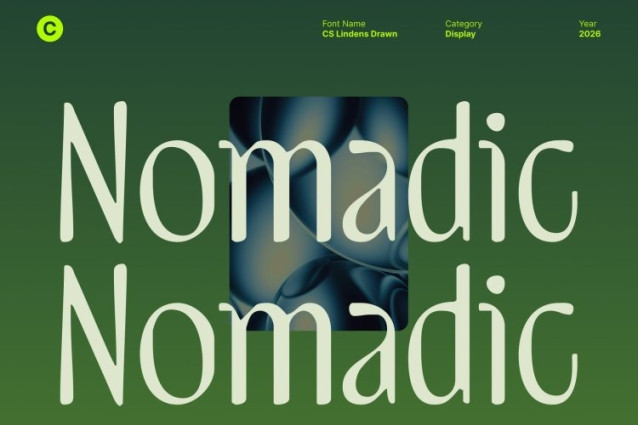
CS Lindens Drawn Font
CS Lindens Drawn Font This is an aesthetic sans serif font designed to embody minimalism, clarity, and modern beauty, enhanced with a subtle hand-drawn texture. Its clean lines and sleek construction reflect the visual language of contemporary digital culture, while the drawn effect adds warmth and artistic character.
Minimalist Structure with Soft Hand-Drawn Beauty
The letterforms are crafted with a minimalist approach, focusing on balance, spacing, and smooth geometry. Light stroke variations and a gentle drawn finish introduce softness and uniqueness to each character, preventing the font from feeling overly rigid or mechanical. This combination enhances readability while delivering an elegant, aesthetic look that feels refined yet approachable.
Modern Digital Vibe with Artistic Aesthetic Appeal
This captures the essence of modern digital and lifestyle trends. Its understated elegance pairs beautifully with the organic drawn texture, creating a sense of quiet luxury and visual harmony. The font feels stylish, trendy, and expressive, making it ideal for designs that value mood, subtle detail, and contemporary aesthetics.
Perfect for Social Media, Fashion, and Lifestyle Branding
Designed for versatile modern use, perfect for social media content, fashion branding, lifestyle identities, luxury visuals, and clean website layouts. Its aesthetic sans serif form, combined with a soft hand-drawn character, enhances logos, packaging, posts, and promotional designs with a refined, artistic, and modern presence.